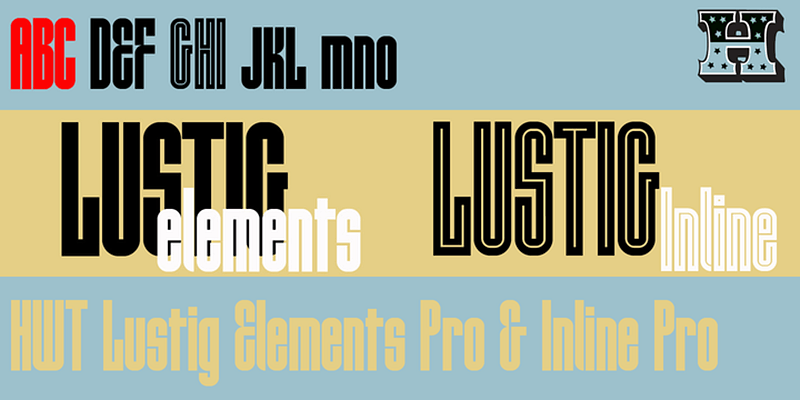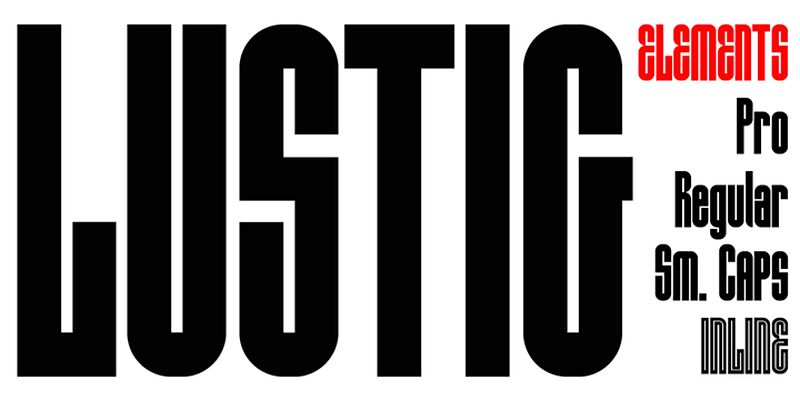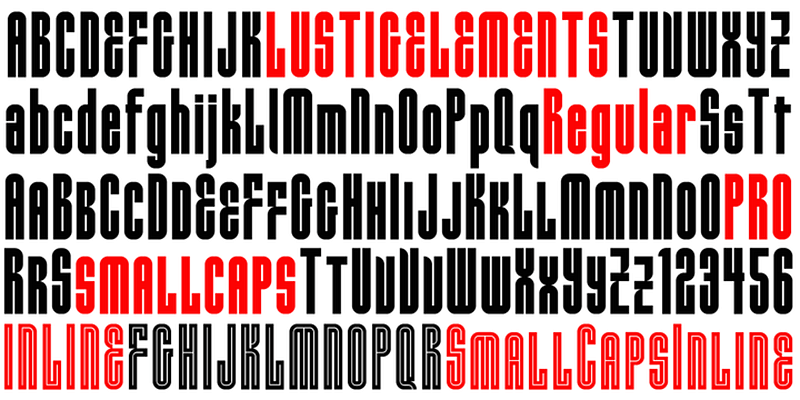
HWT Lustig Elements is a revival of Euclid originally designed in the 1930s by Alvin Lustig. It combines four shapes to a grid to make letterforms that hold true to the spirit of the original font.
Hamilton Wood Type Collection, established in 2012, is a joint venture between P22 Type Foundry and the Hamilton Wood Type & Printing Museum. The founding goal was to safeguard a typographic era and make classic wood type designs available as digital fonts for modern audiences. This historical collection of serif revivals, sans reinterpretations, decorative embellishments, script reclamations, and original chromatic designs is stunningly relevant and usable for any imaginative design practice.